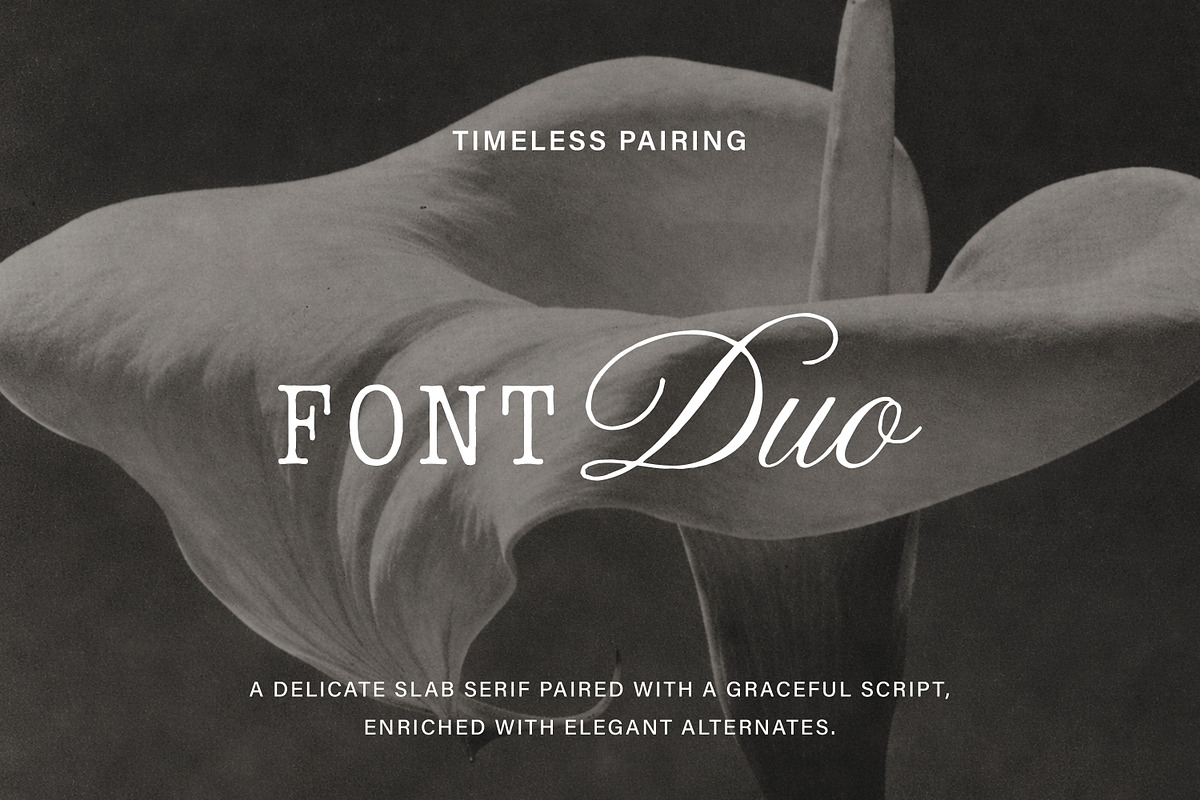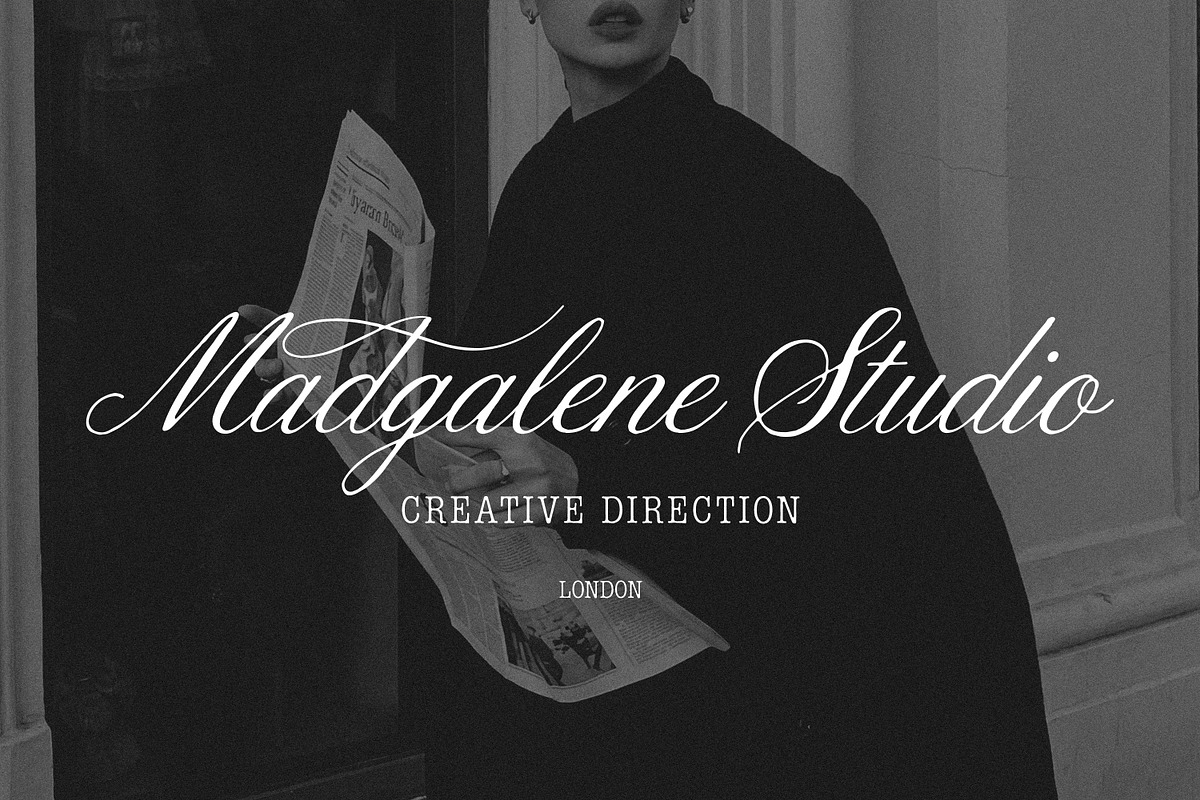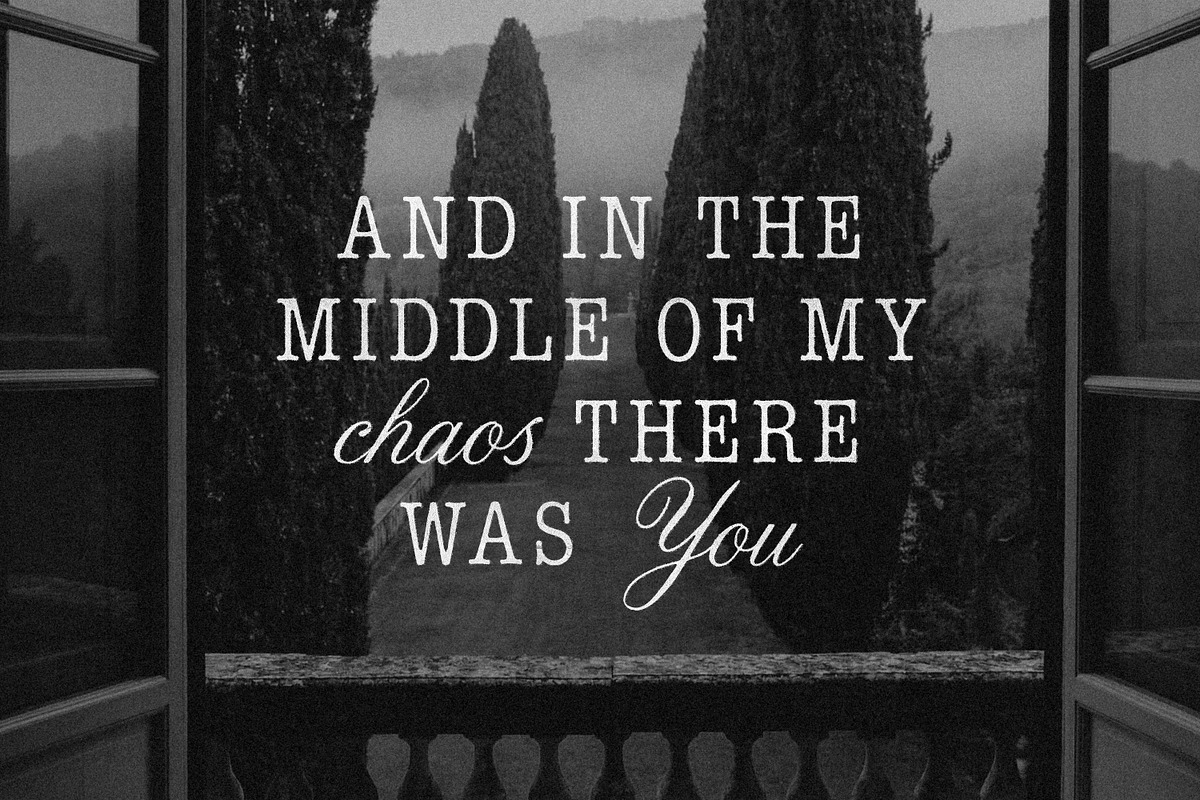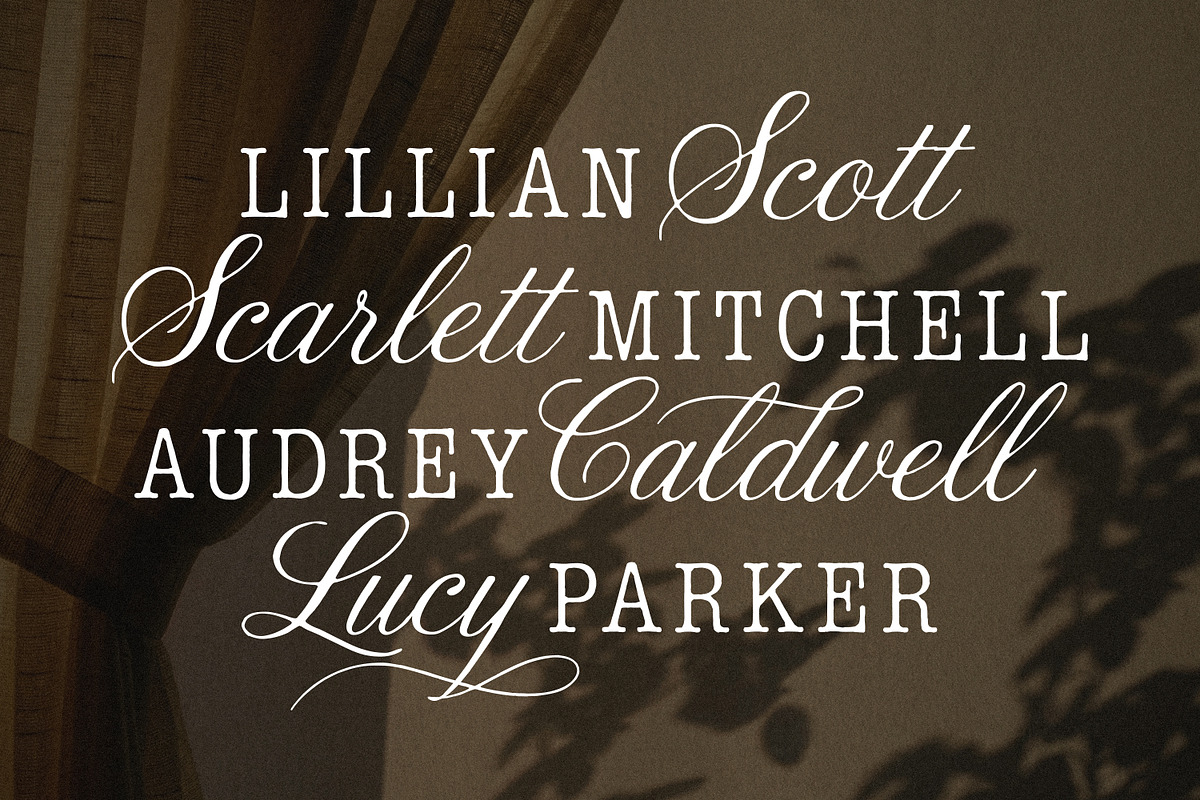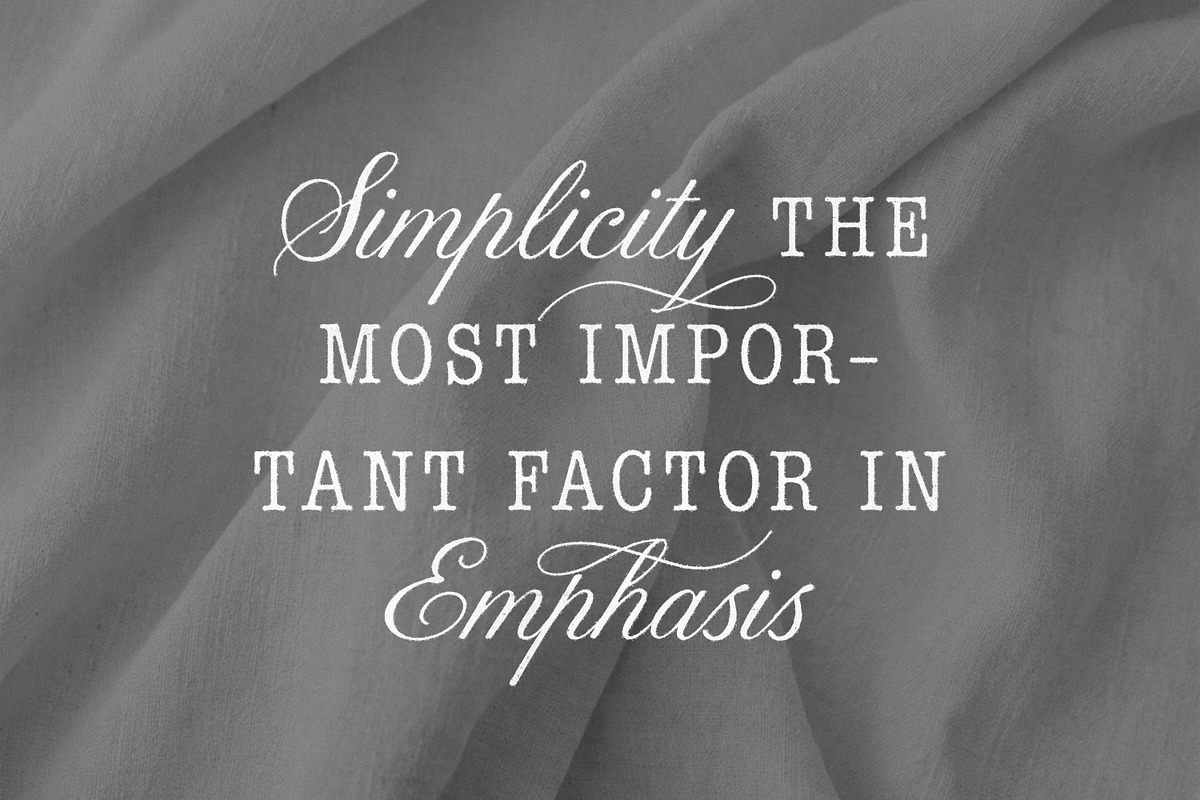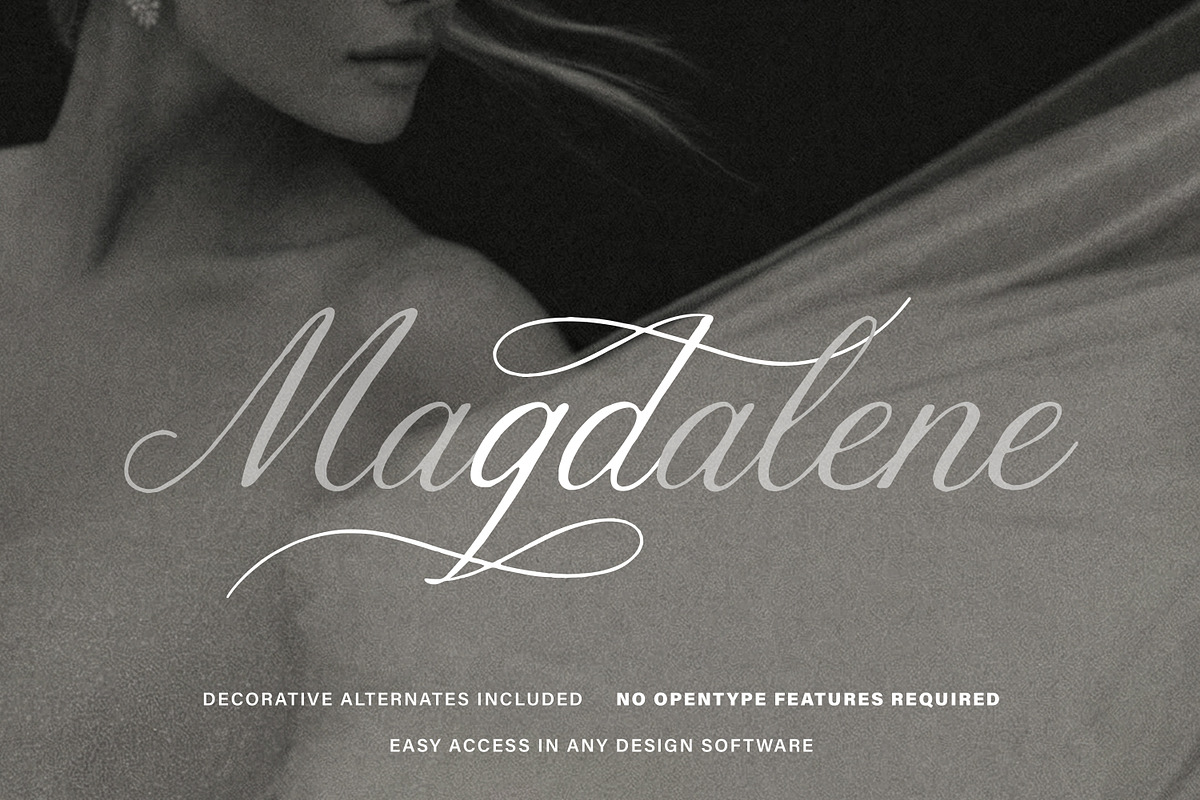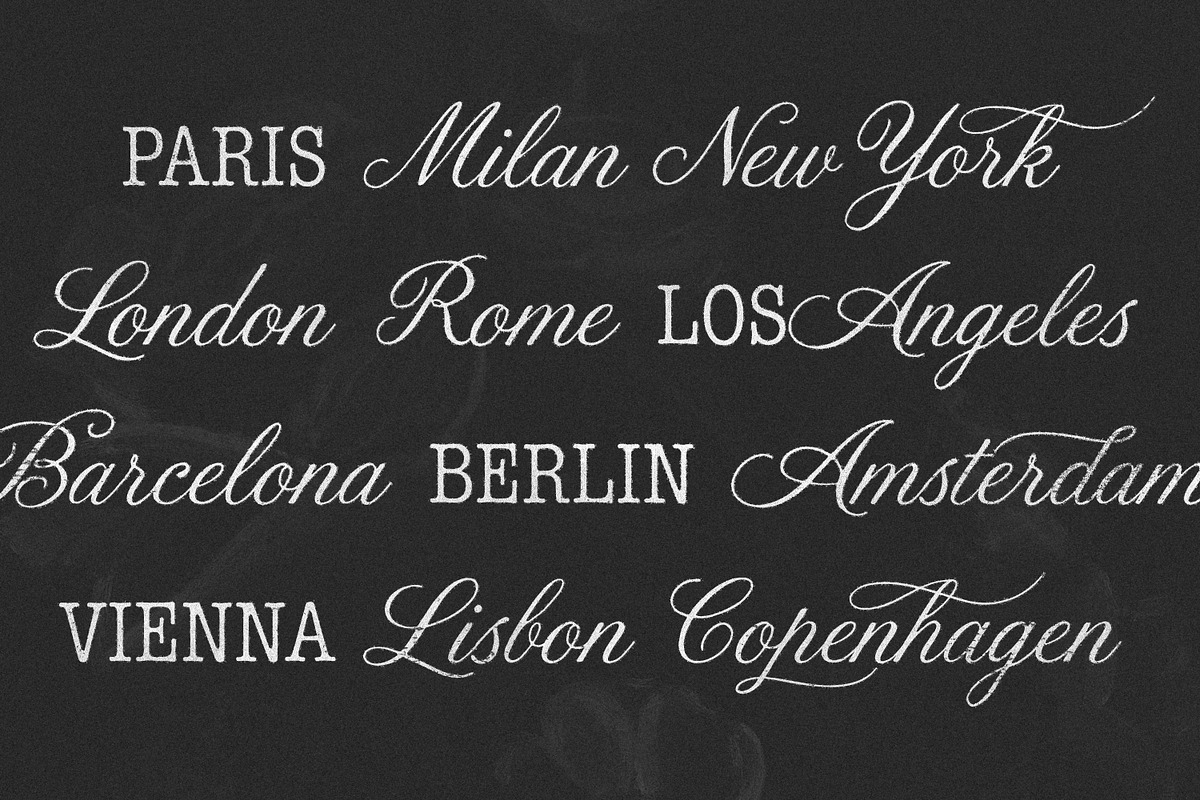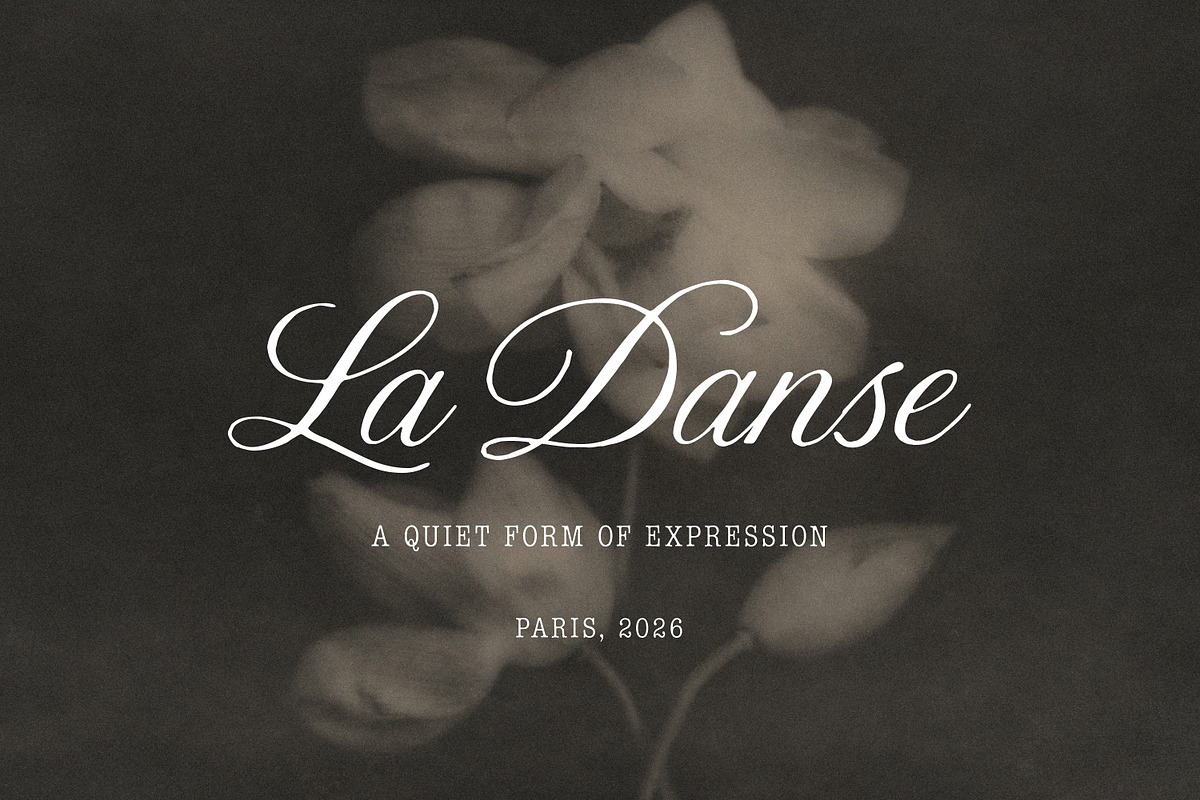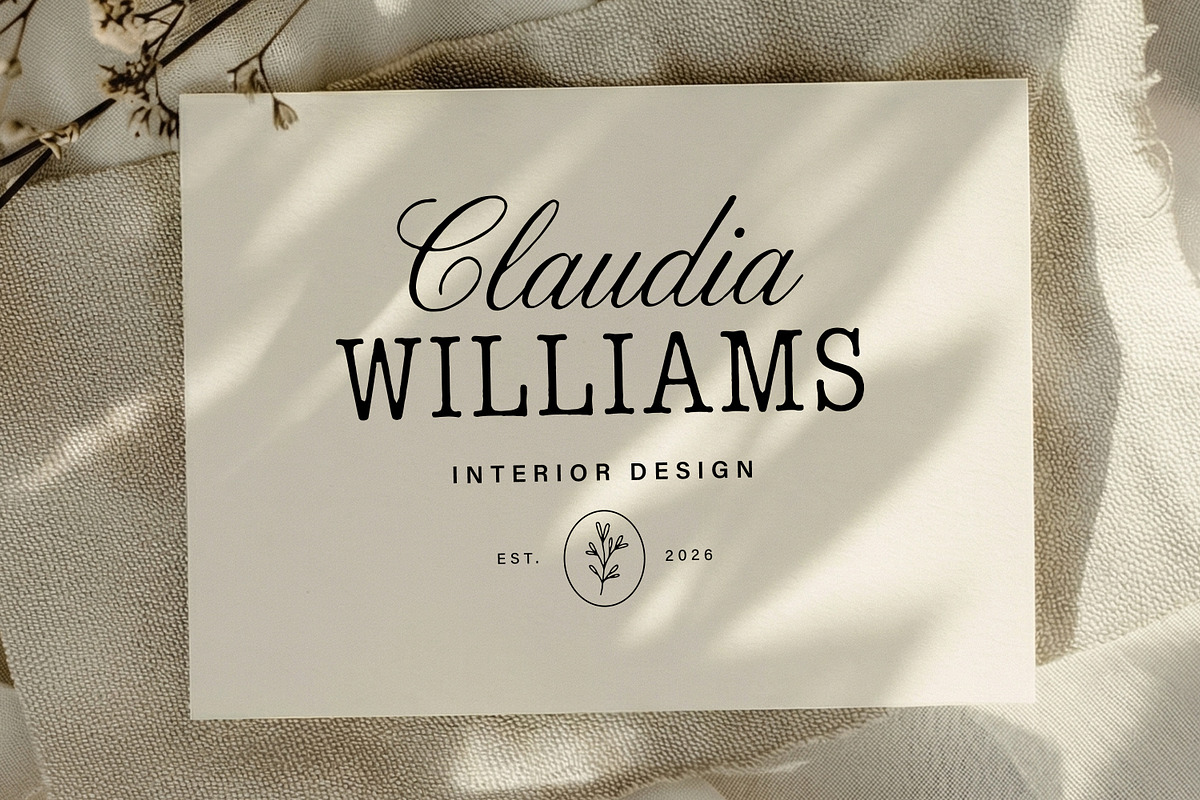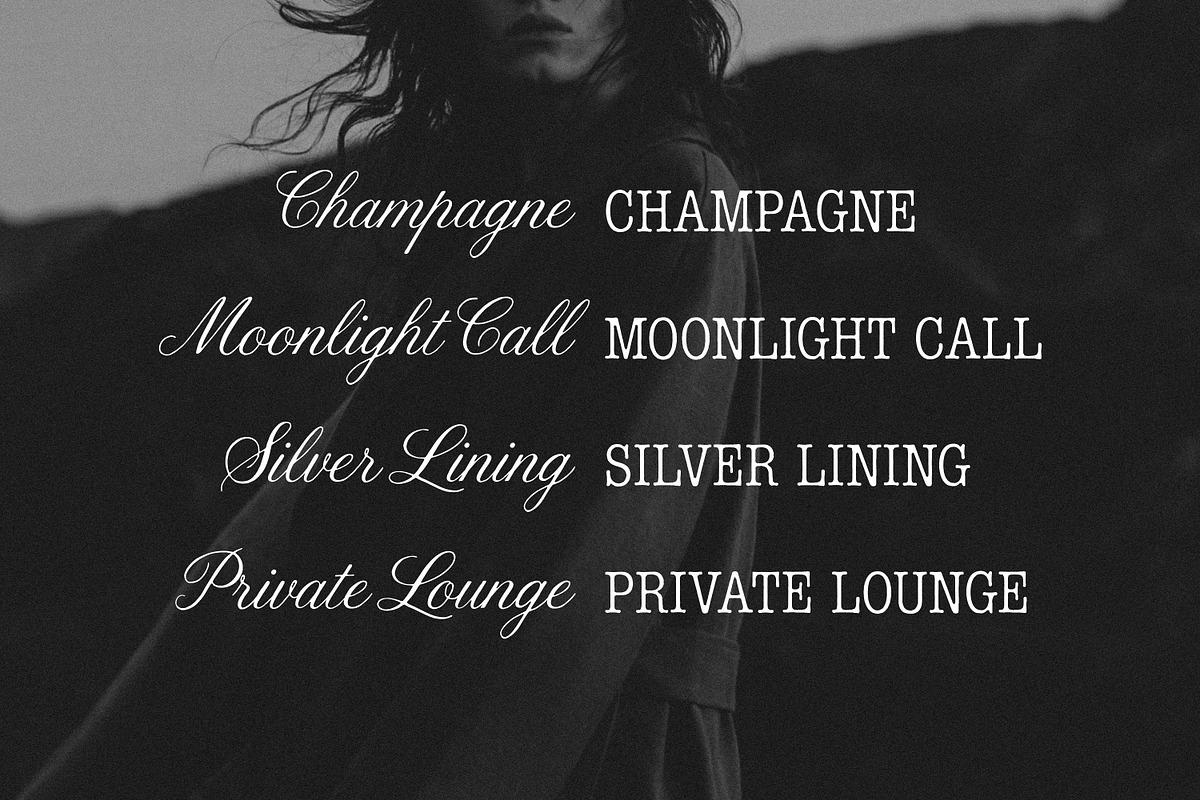
Details - Refined Font Duo
Details is a font duo built on the beauty of contrast. It pairs a fluid, hand-drawn script with a soft slab serif to create a look that feels high-end yet approachable.
The script brings the character—flowing naturally with custom alternates that add a personal touch. The slab serif provides the grounding, offering a clean structure that keeps everything readable and balanced. It’s a pairing designed for when you need your typography to feel intentional and curated.
- Editorial layouts & branding
- High-end packaging
- Wedding & event stationery
- Social media identities